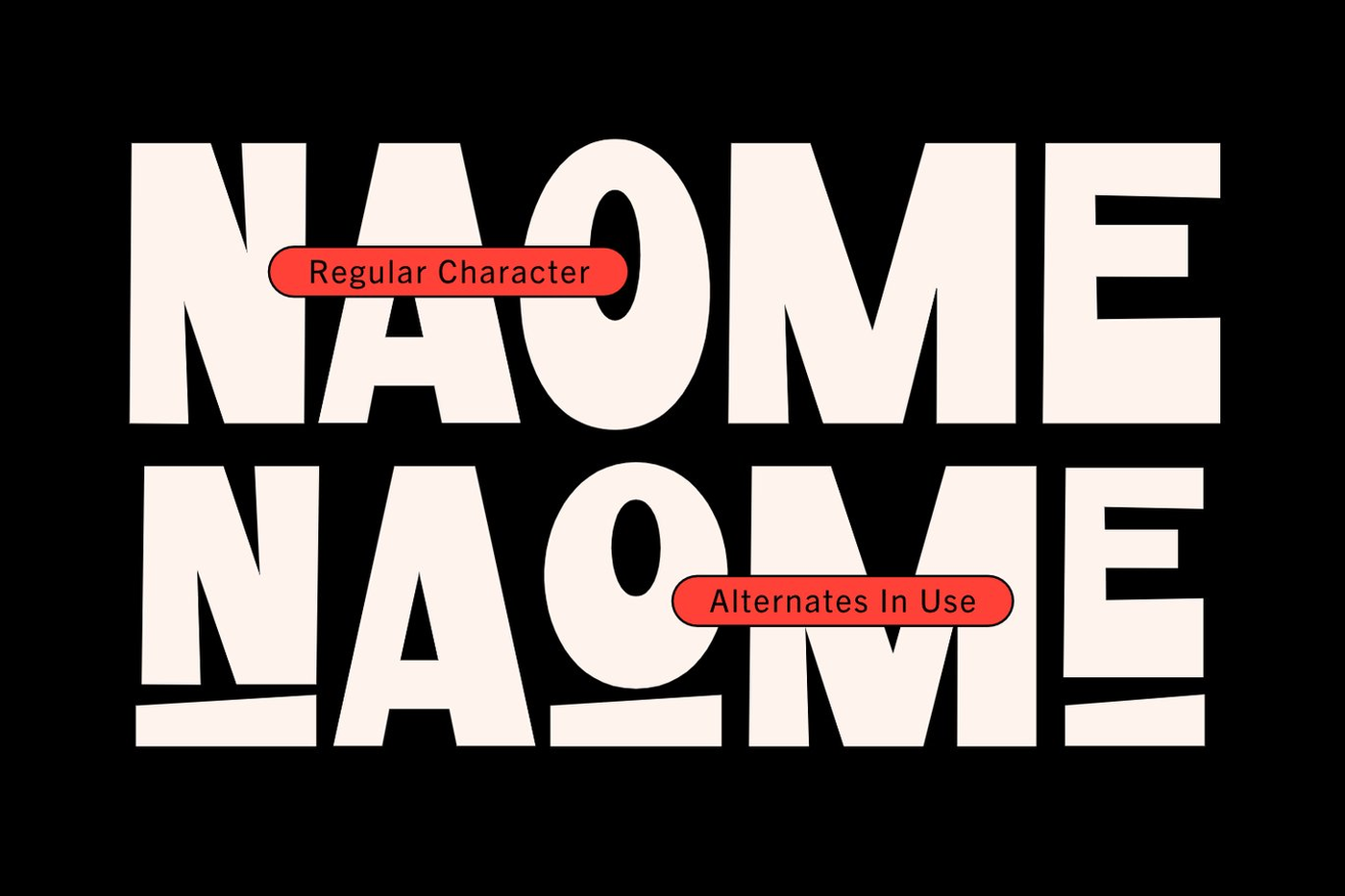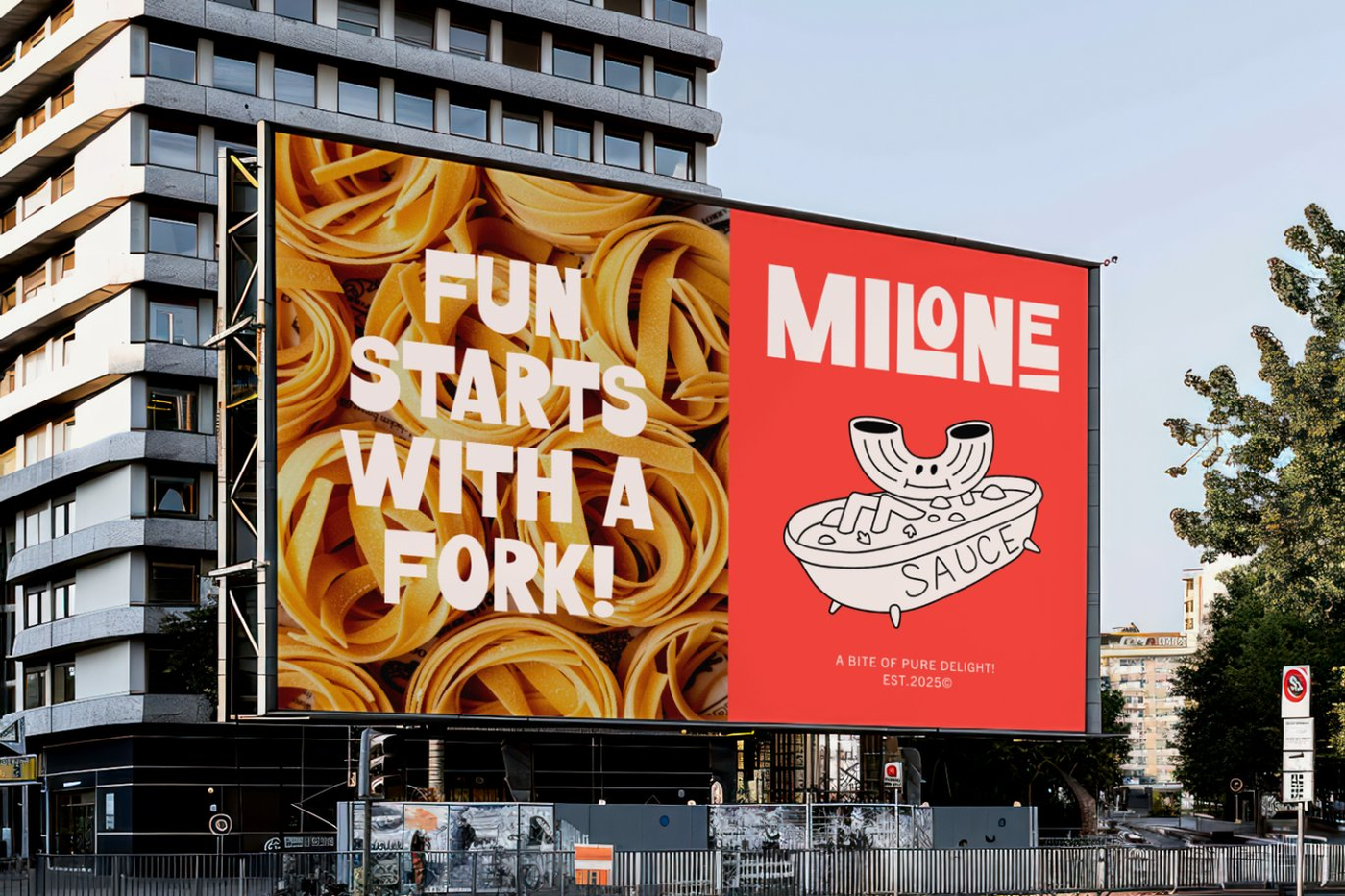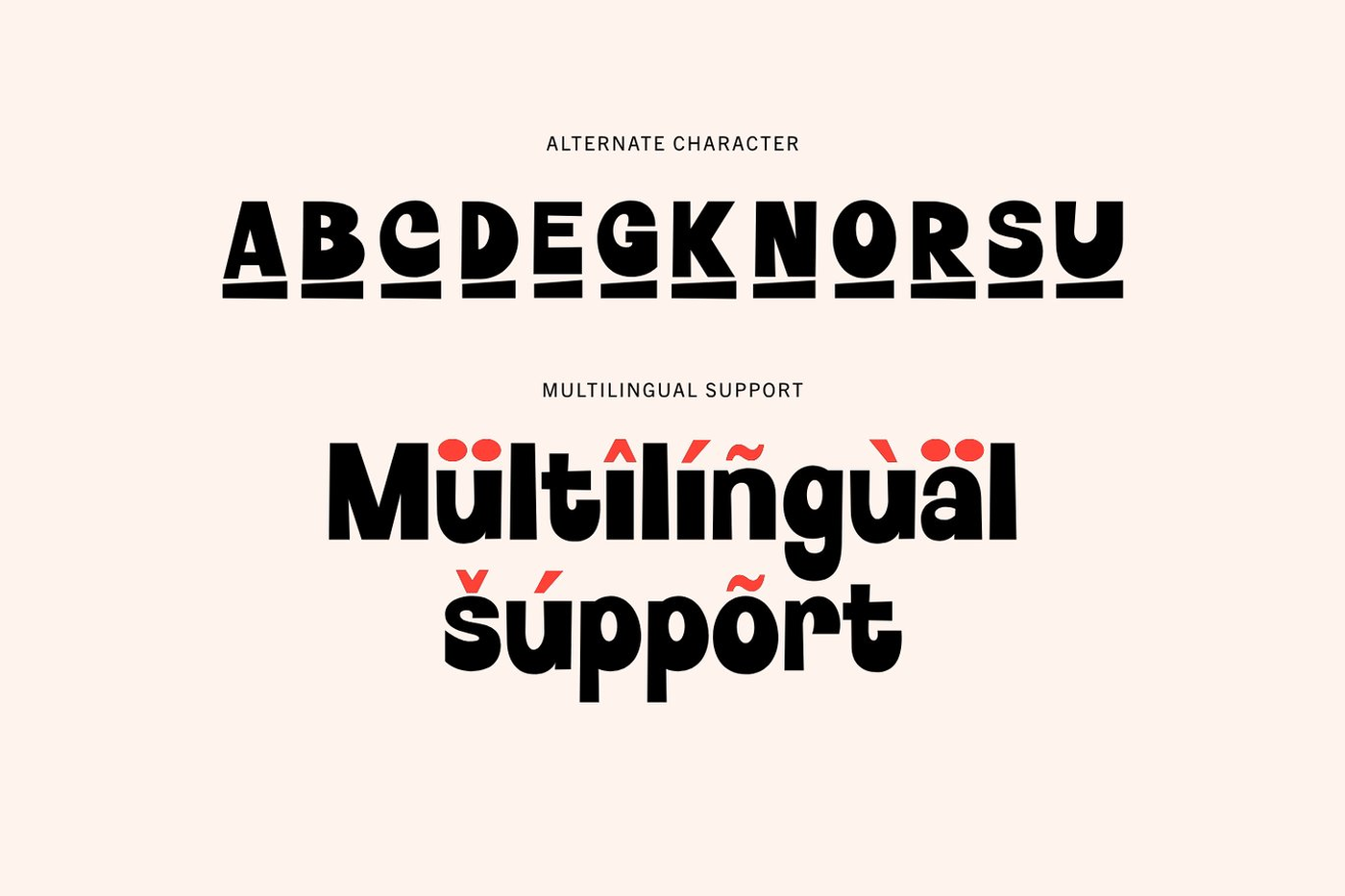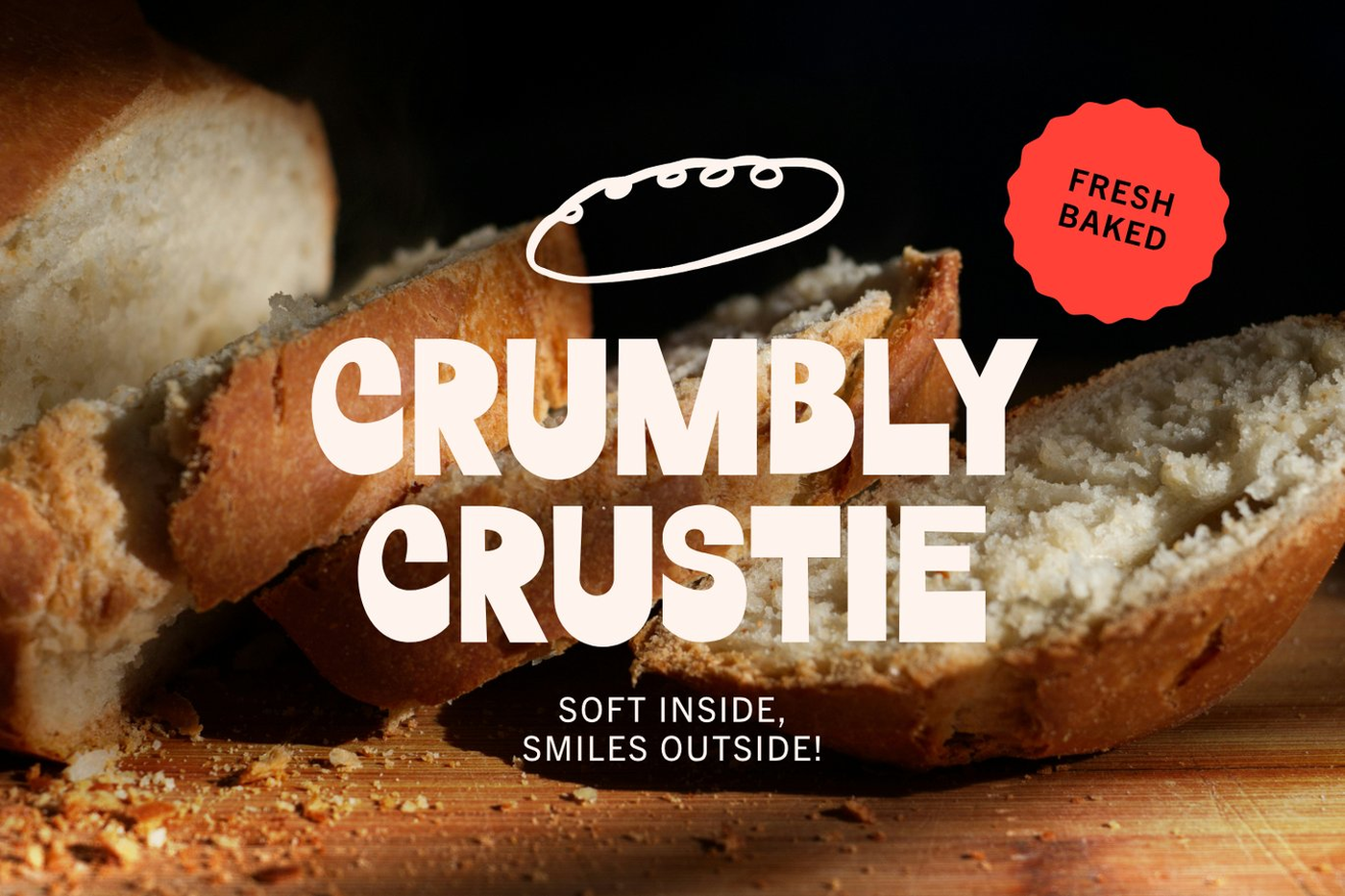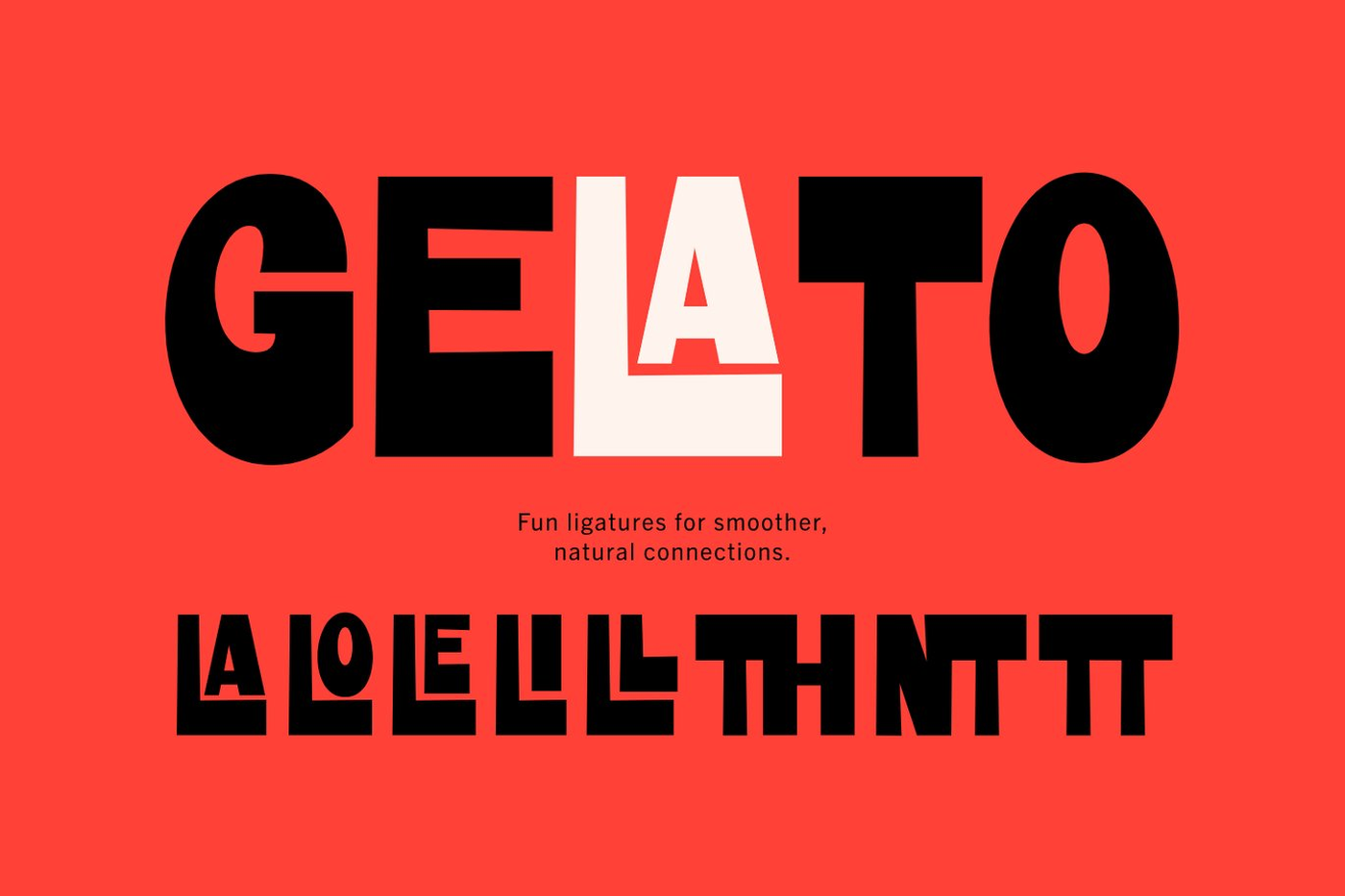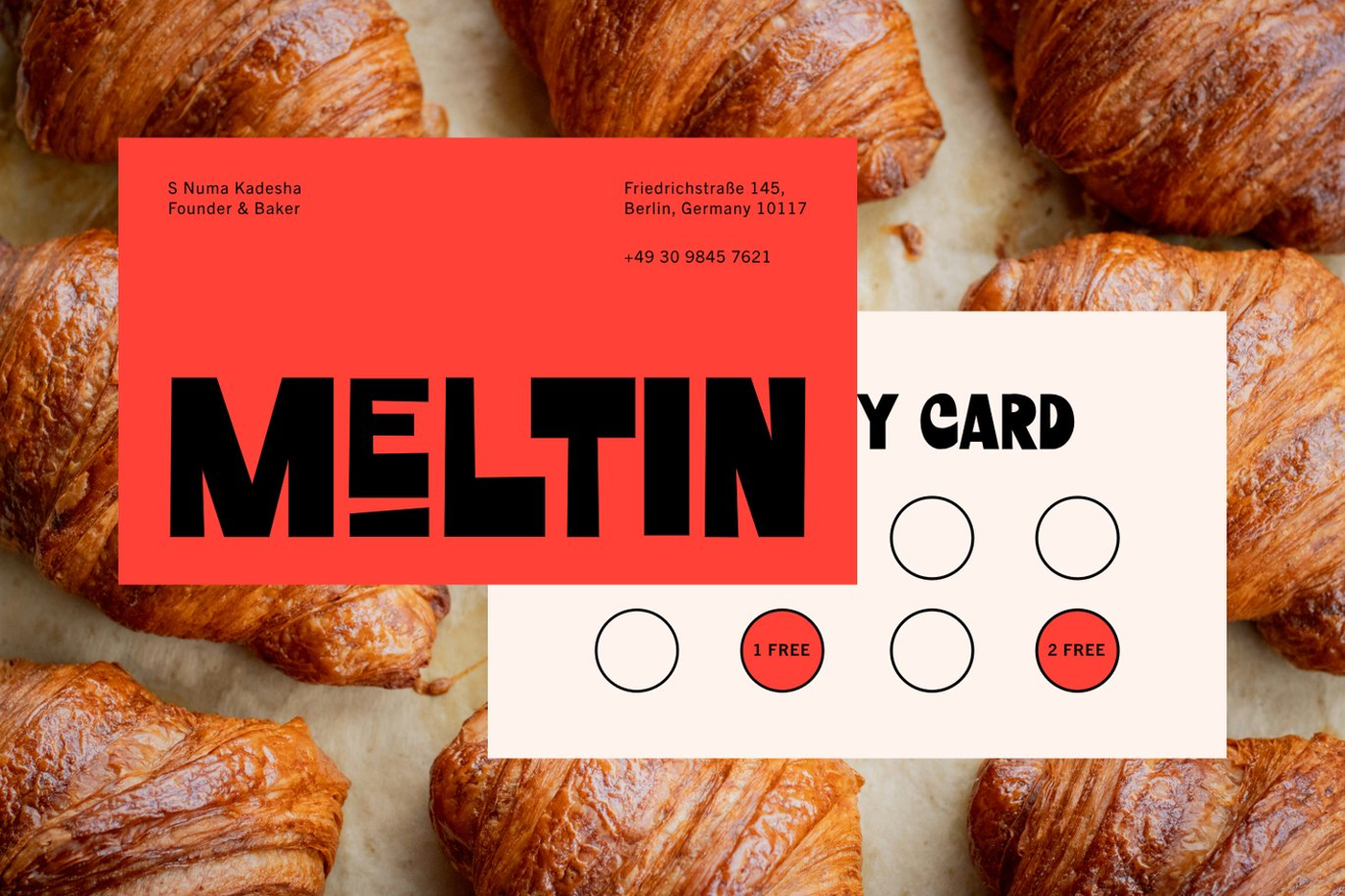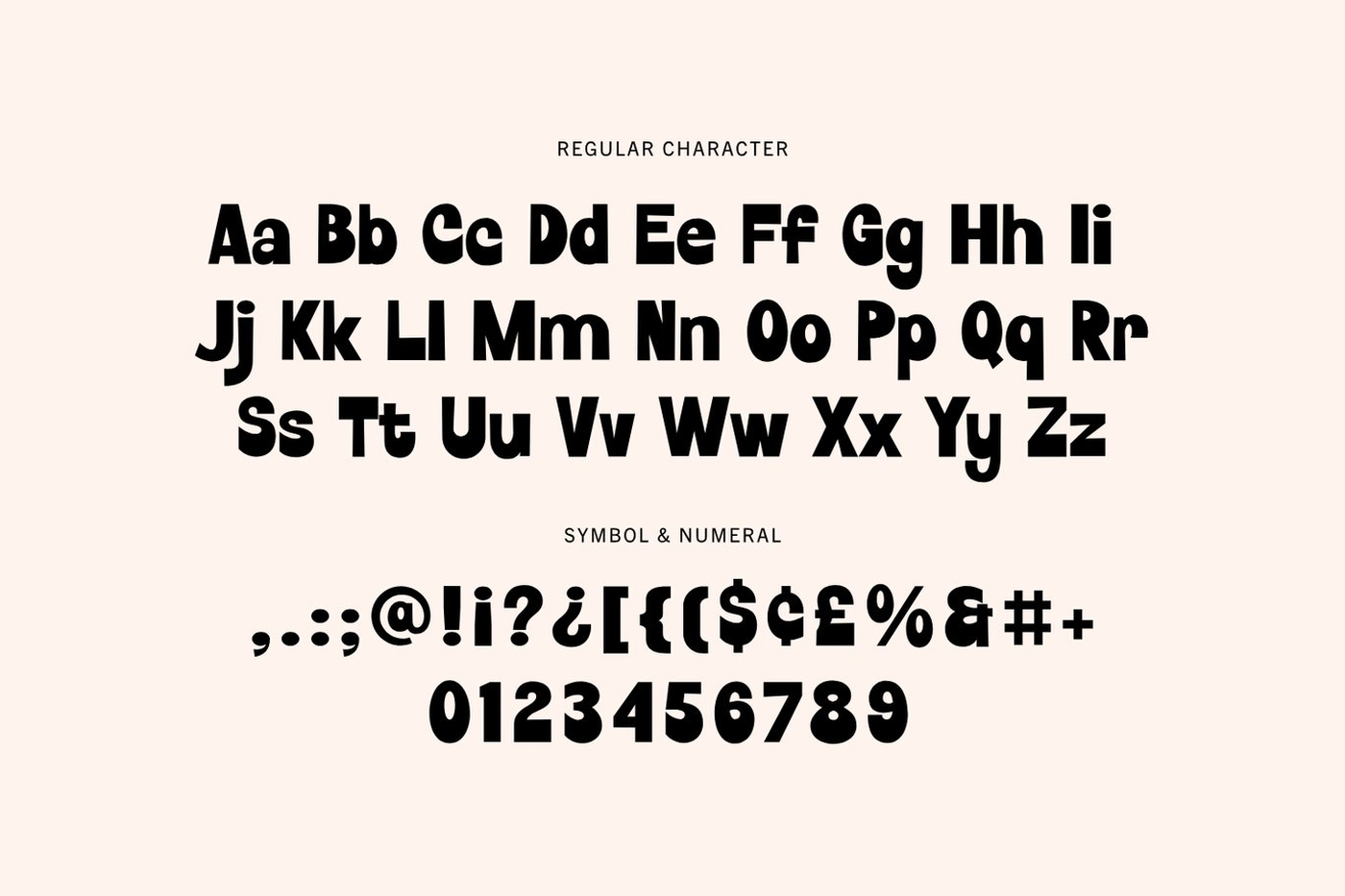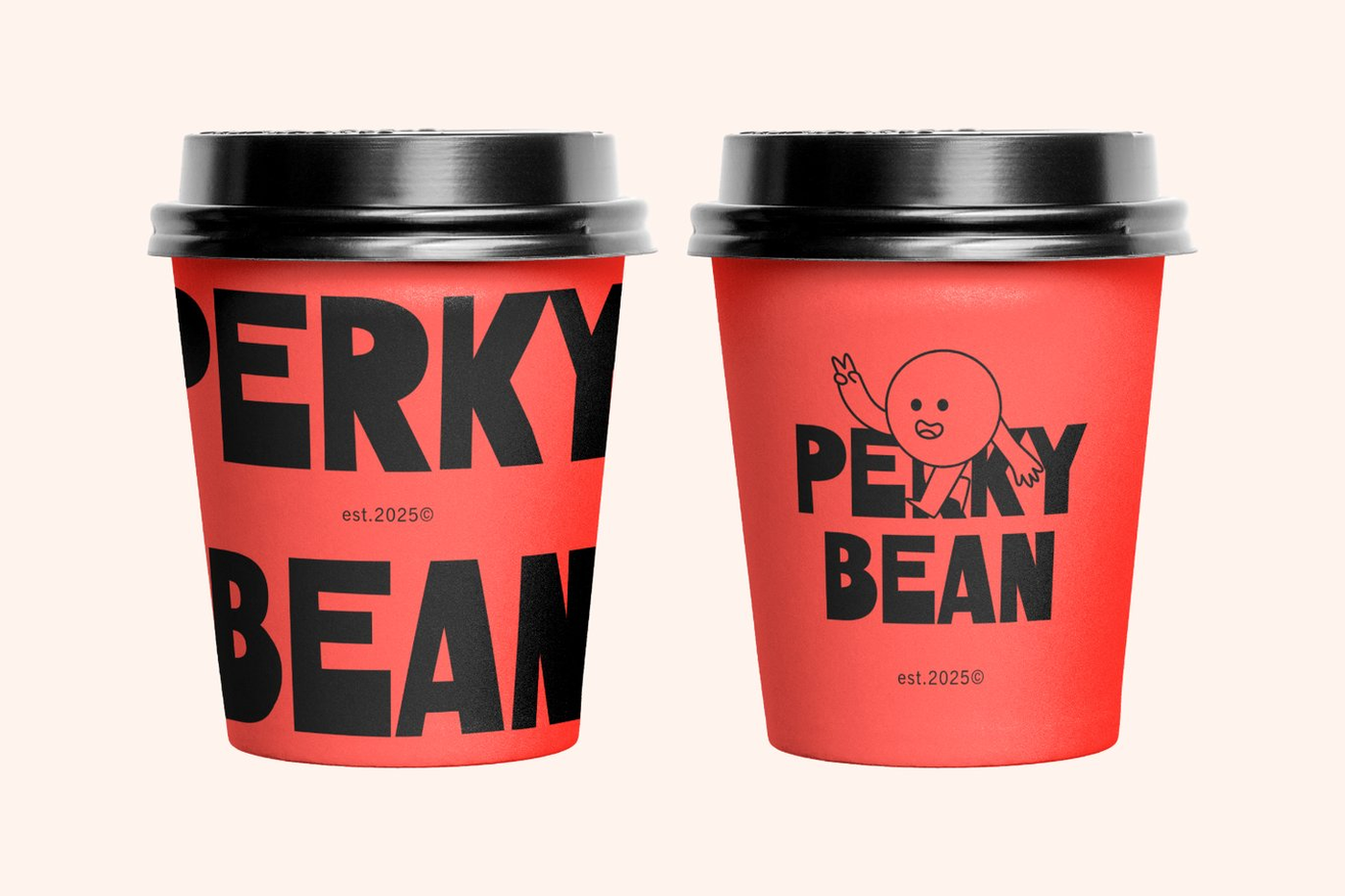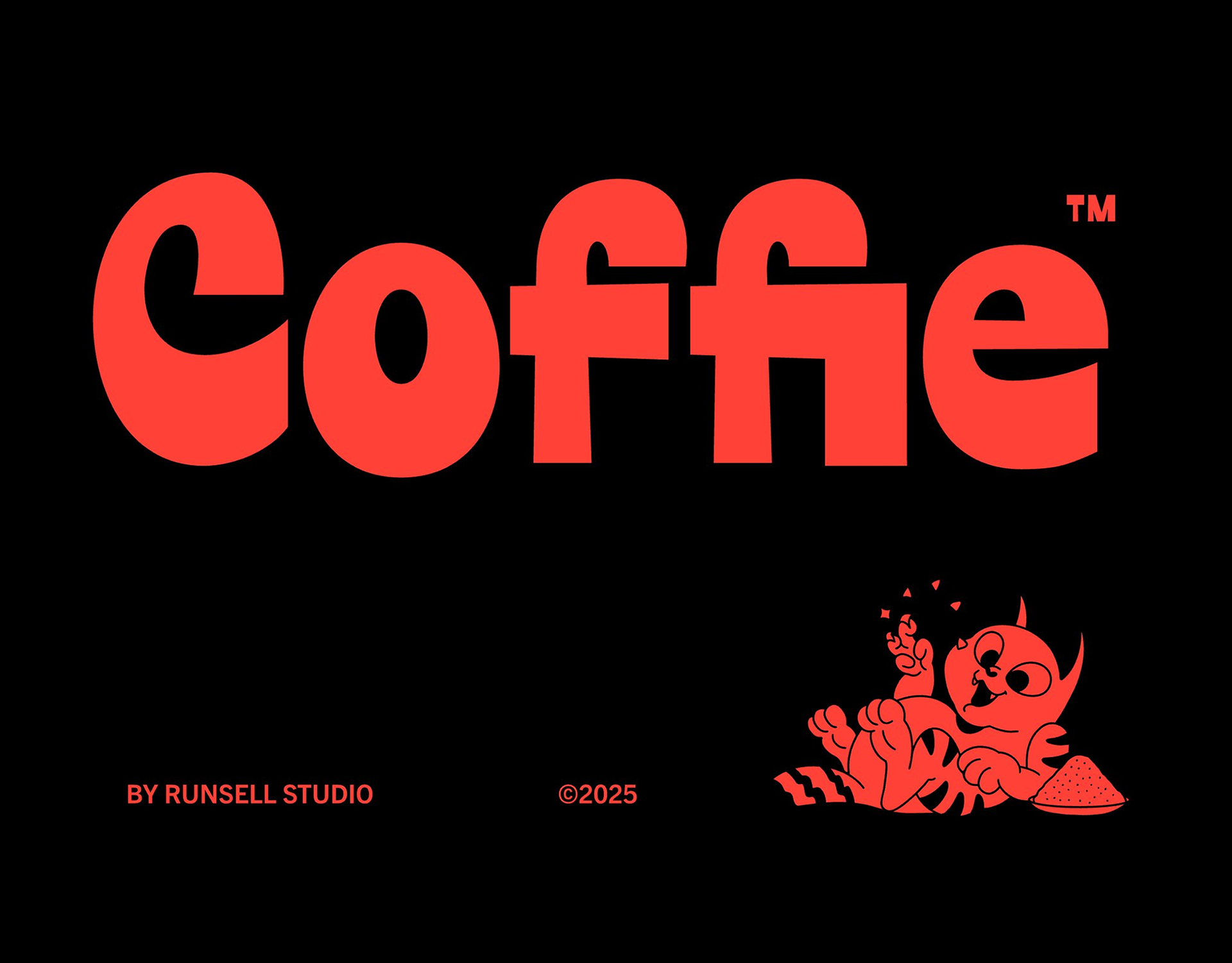
Coffie - Bold Display Font
Coffie is a bold and cozy display font brewed for creative brands in the world of flavor and warmth. With its rounded, chunky letters and soft rhythm, Coffie delivers a friendly and inviting vibe — perfect for coffee, bakery, restaurant, and café branding. Its smooth curves and modern proportions make it ideal for crafting stylish logos, packaging, and menu headlines that capture the essence of comfort and craftsmanship. From burger joints to chocolate shops, pizza menus, and playful kitchen signage, Coffie adds personality and charm to every brand identity. Whether you’re cooking up an artisanal café look or designing sweet candy visuals, this font blends nostalgia with modern energy. Coffie isn’t just typography — it’s a warm sip of design made to bring flavor to your creative projects.